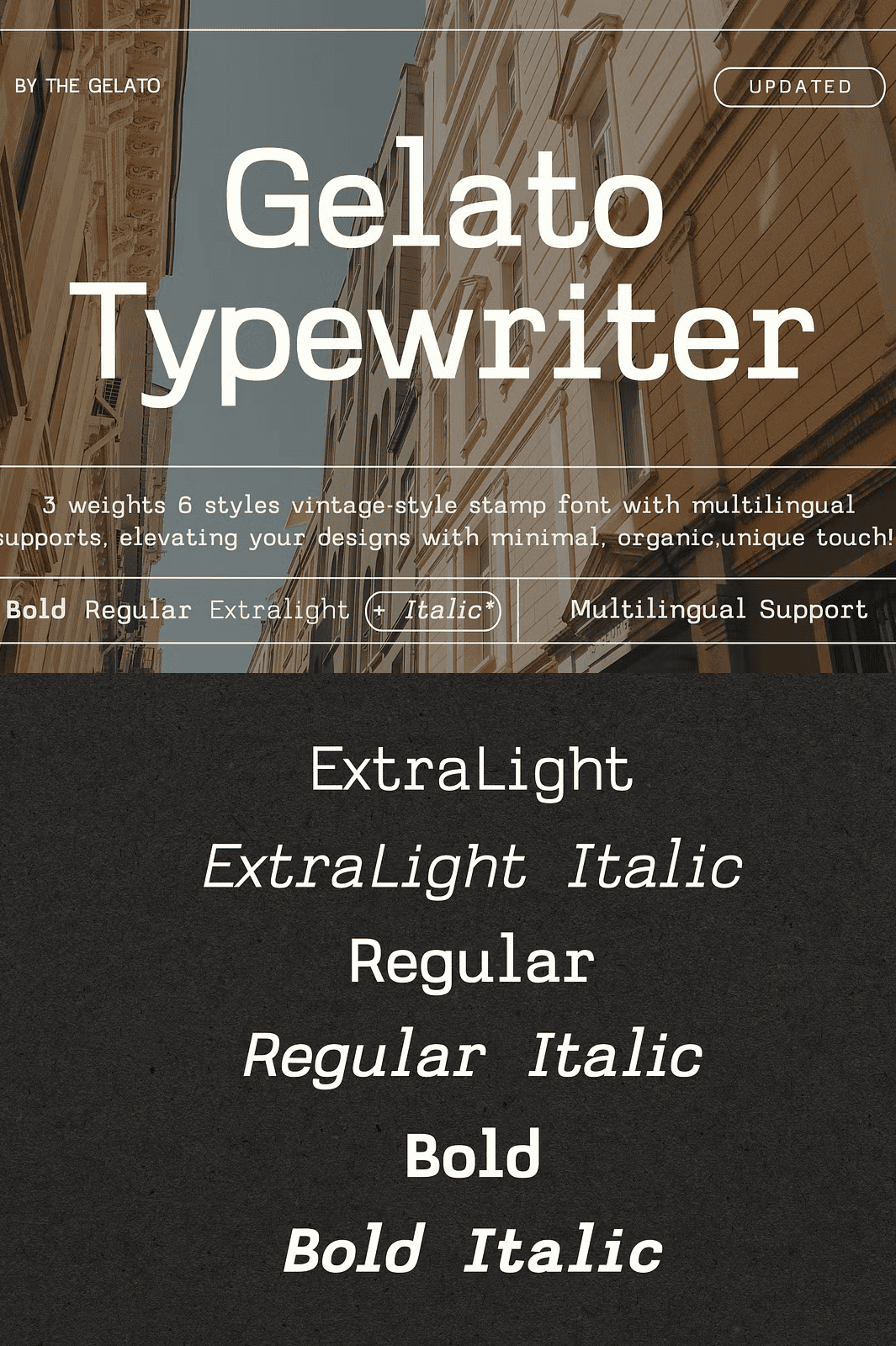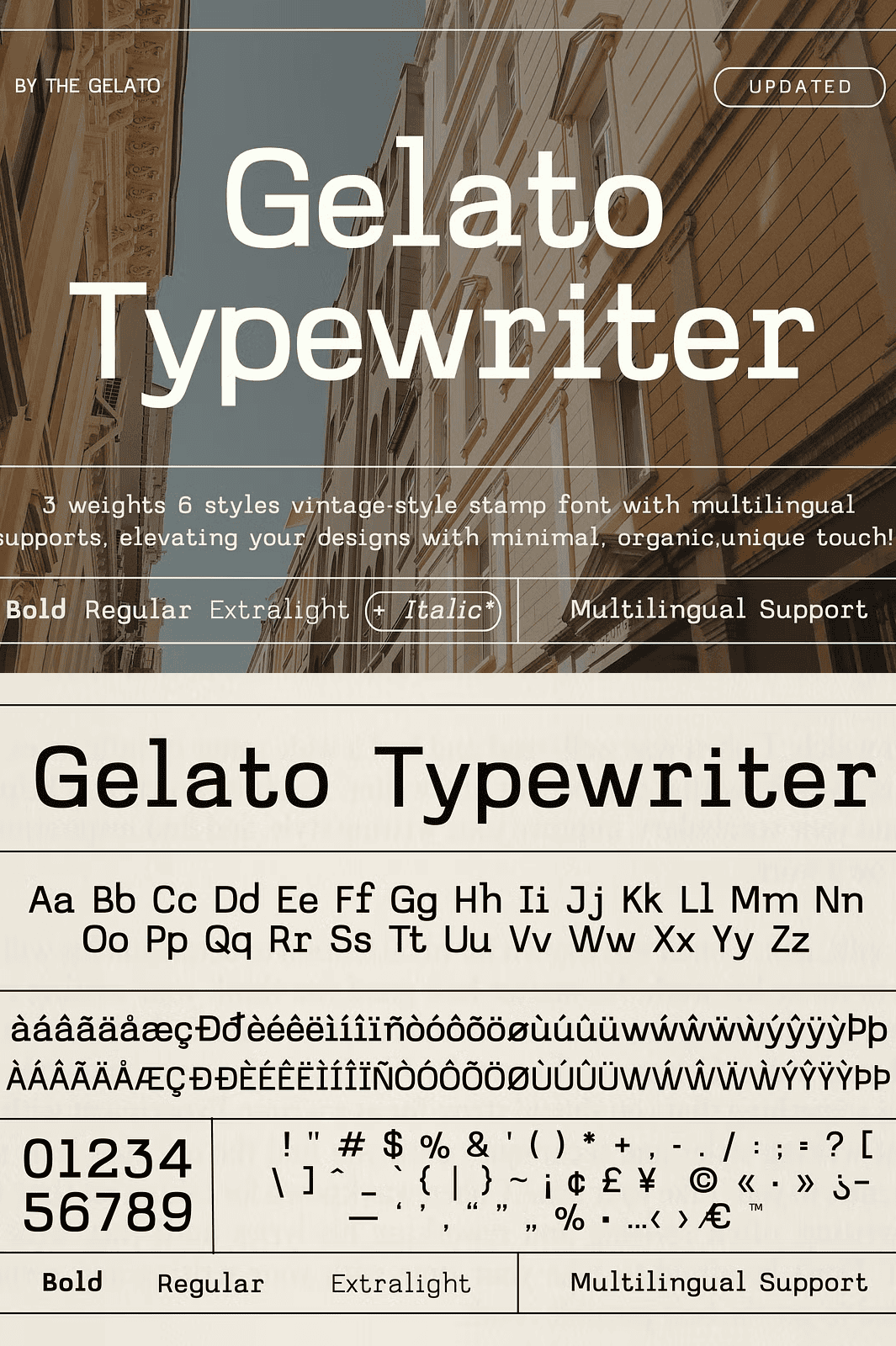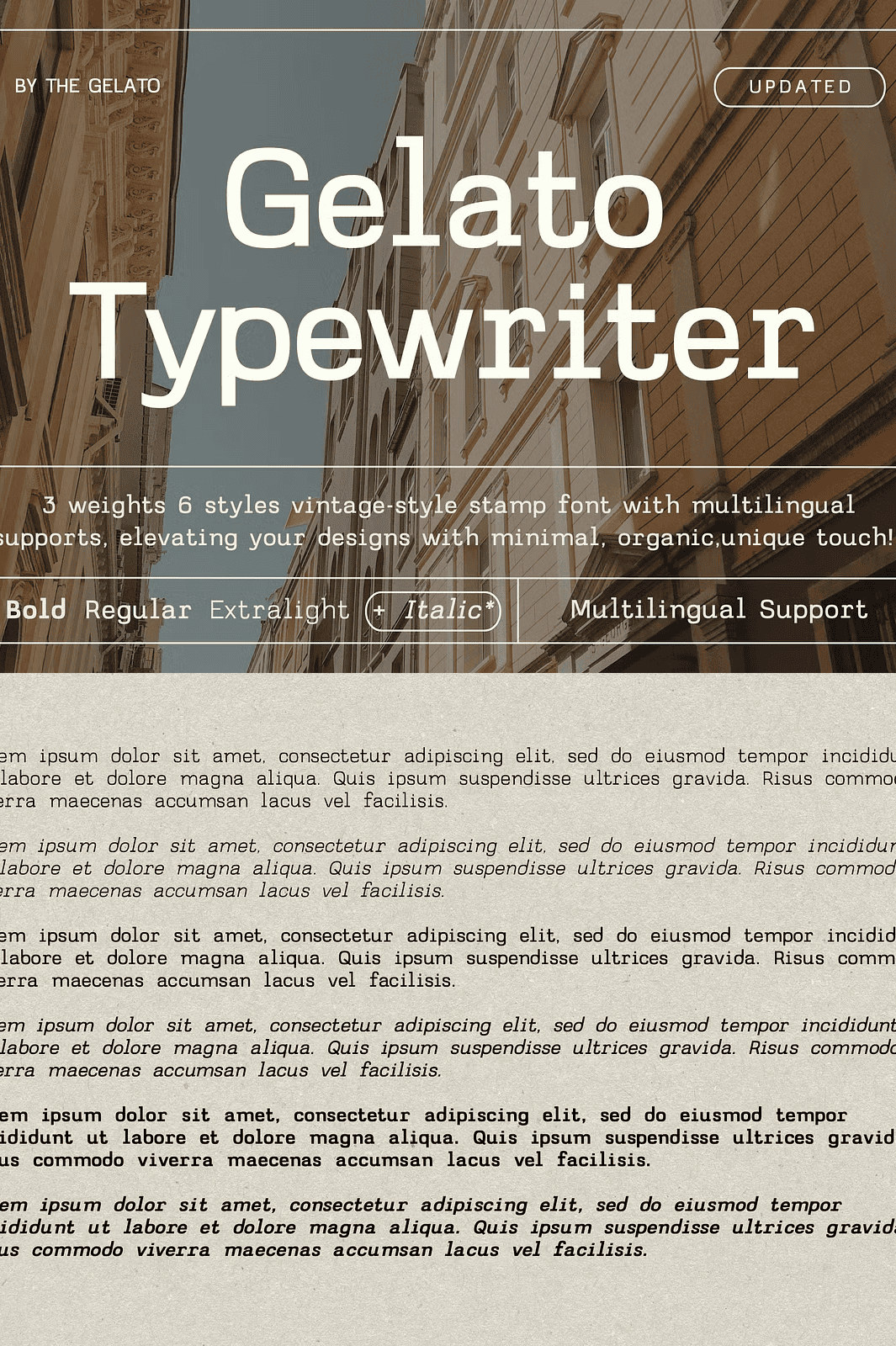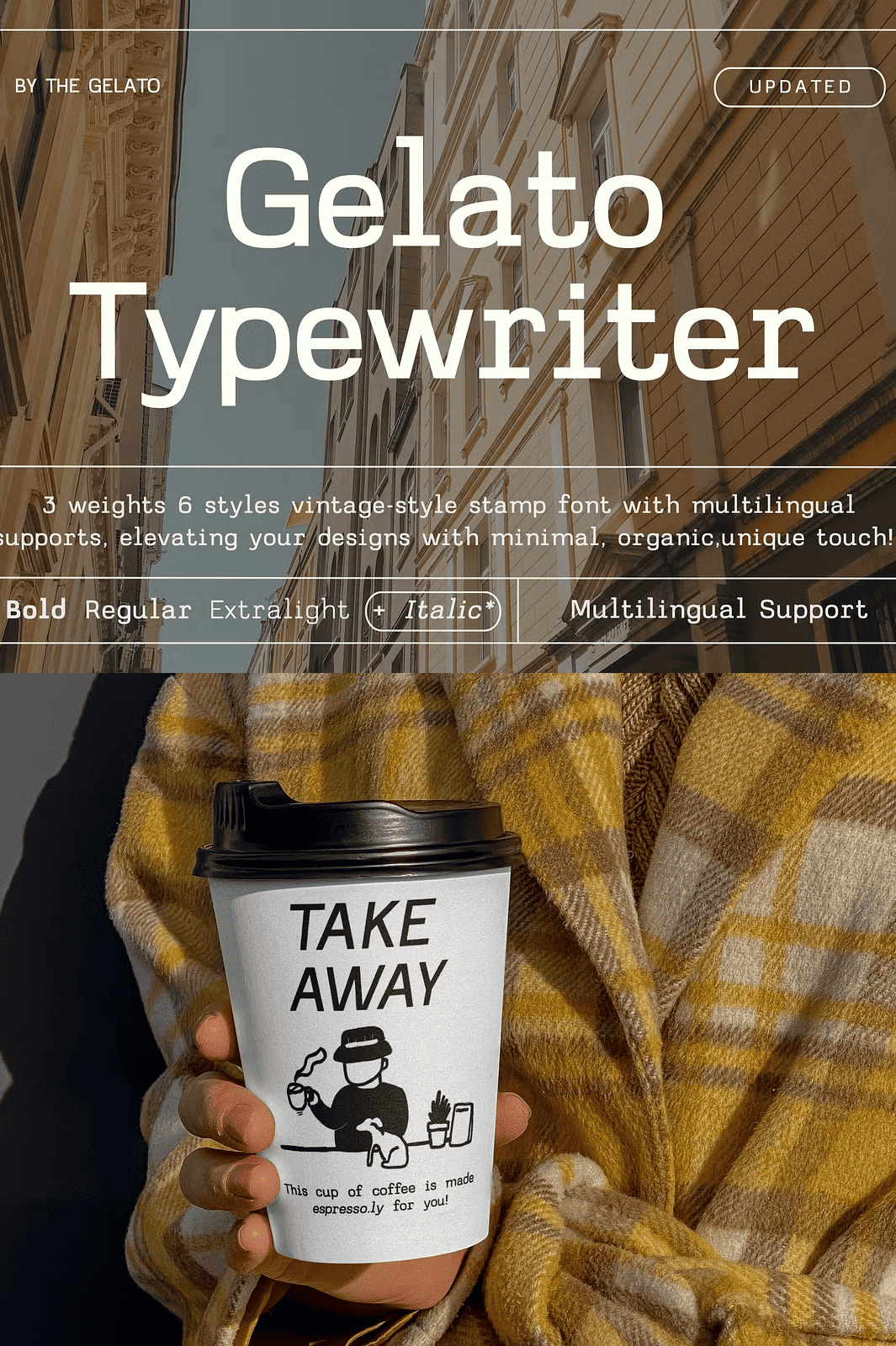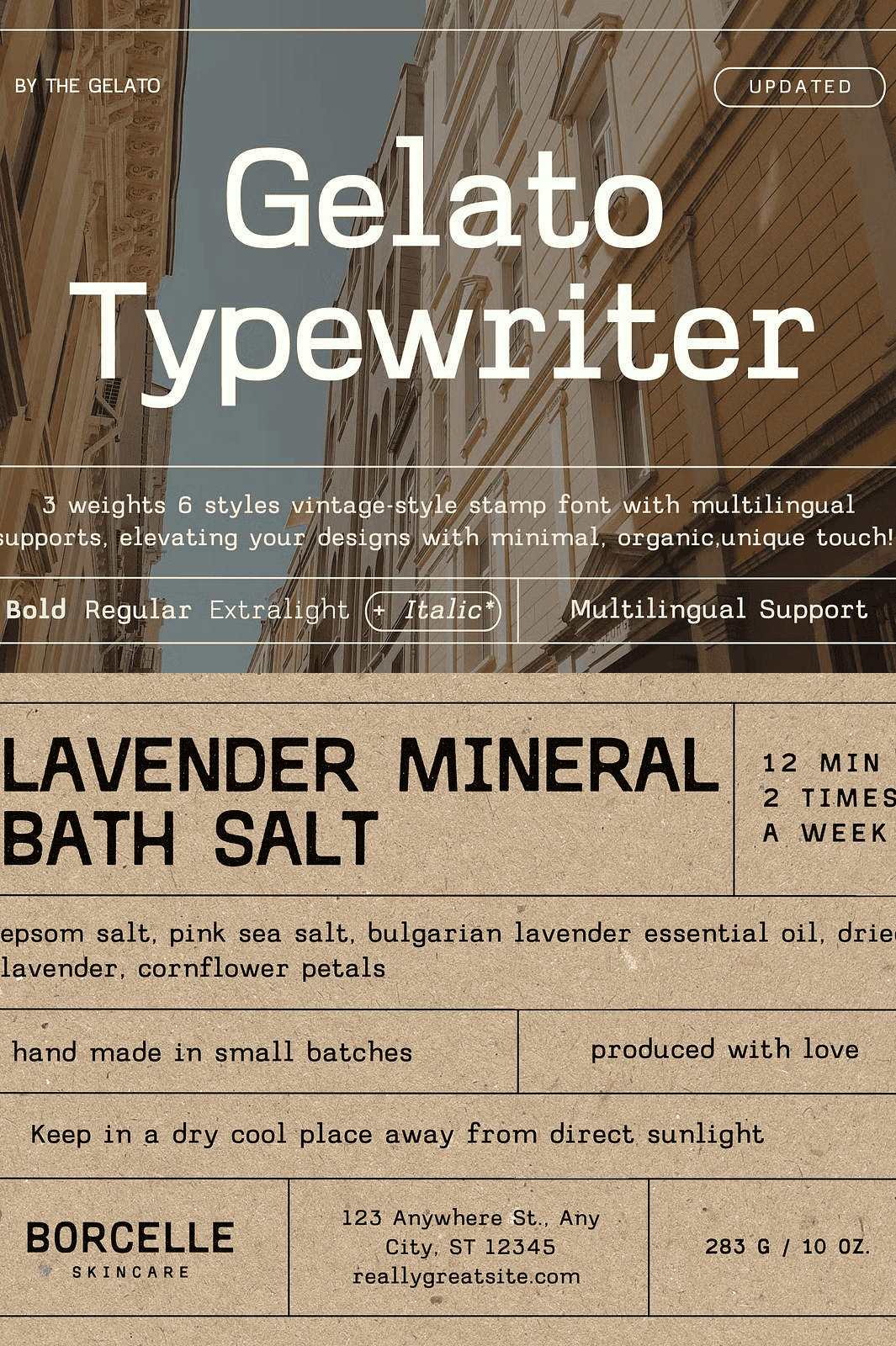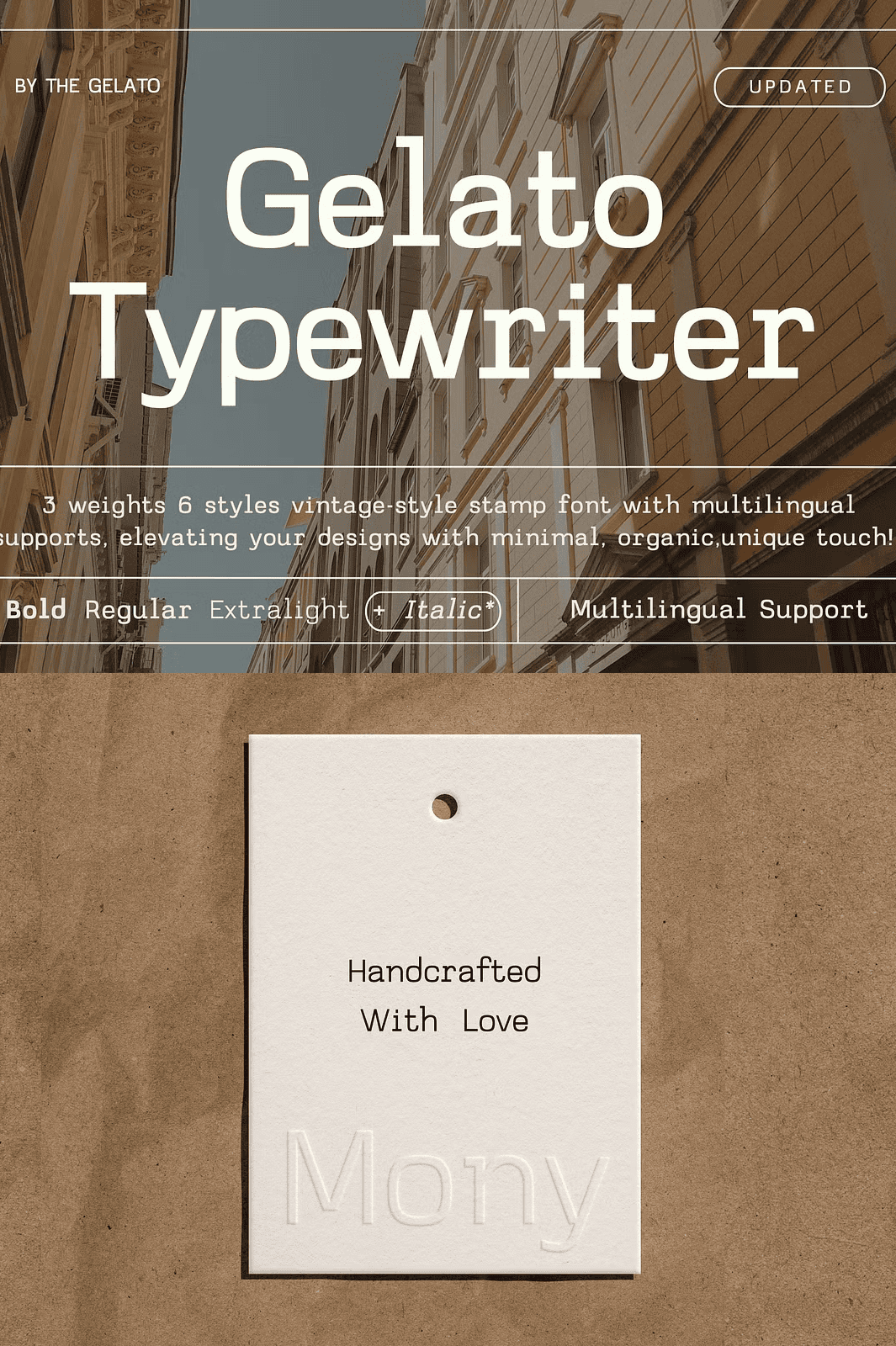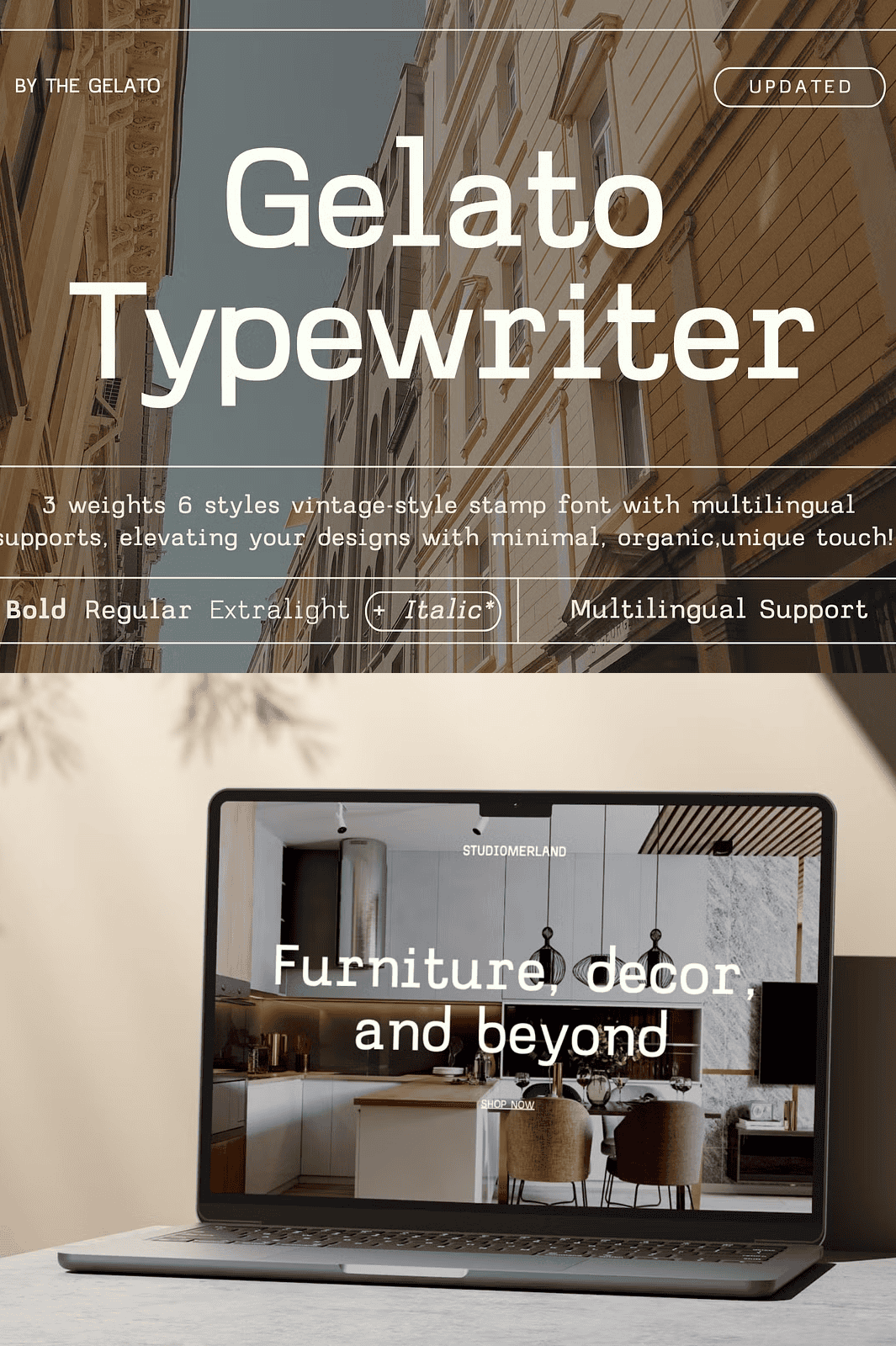
Revitalize your designs with Gelato Typewriter—a meticulously crafted vintage-style stamp font that blends minimalism, character, and authenticity. This 3-weight, 6-style typeface delivers a handcrafted, organic feel, making it the ideal choice for designers seeking a unique, authentic touch in branding, editorial layouts, and packaging. Whether you’re creating a nostalgic poster, a fashion label, or a stylish menu, Gelato Typewriter adds a distinctive, artistic flair that stands out from generic digital fonts.
Artisanal Design, Modern Flexibility
Each character in Gelato Typewriter is thoughtfully designed to emulate the charm of real vintage typewriters and hand-stamped letters. With three distinct weights—Extra Light, Regular, and Bold—and six variations including italic styles, you have complete control over your design’s mood and emphasis. Use the Extra Light for subtle elegance, Regular for balanced readability, or Bold for impactful headlines. The italic styles add a touch of sophistication and dynamic flow, perfect for editorial features and quote displays.
Rich Typographic Features for Professional Use
The font’s openType features include ligatures, stylistic alternates, and contextual substitutions—tools that elevate your text from ordinary to extraordinary. Swap default characters for unique variants, create custom visual rhythms, and maintain typographic consistency across large text blocks or branding kits.
Elevate Your Projects with Vintage Authenticity
Gelato Typewriter is more than just a font—it’s a creative tool for storytelling. Use it to build compelling visual identities across a wide range of applications:
- Brand logos and business card designs with an artisanal feel
- Product packaging and labels with a handcrafted, premium look
- Quotations, banners, and motivational posters with a nostalgic tone
- Event invitations and greeting cards with unique character
- Restaurant menus and cafe branding with vintage charm
- Magazine layouts and editorial content that grab attention
- Canva and Procreate artworks with an authentic, hand-drawn aesthetic
- Urban fashion graphics, streetwear branding, and lifestyle content
Whether your project leans into retro minimalism or celebrates the imperfections of analog design, Gelato Typewriter brings authenticity and emotional depth to every letter.
Unlock the Full Creative Potential of Vintage Design
Stop blending in—start standing out. Gelato Typewriter gives you the power to create designs with soul, character, and personality. It’s not just a font; it’s the voice of your brand, the rhythm of your layout, and the heart of your message.
Don’t settle for bland typefaces. Embrace the organic texture, the subtle imperfections, and the timeless appeal of the typewriter era. With Gelato Typewriter, your designs don’t just communicate—they connect.